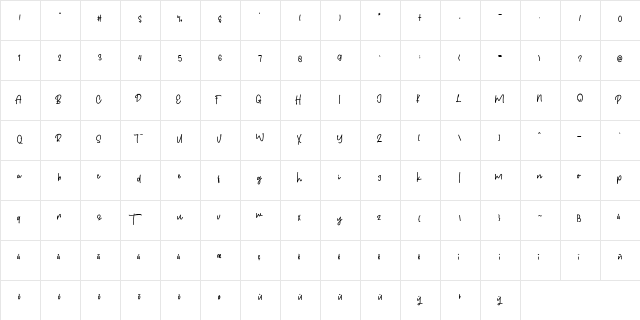
Chillhop Script
| Style | Script |
| Foundry | Crump Hand |
| Designer | Stefie Justprince |
Design Context for Chillhop Typeface
Chillhop flows with the natural rhythm of handwritten lettering, making it ideal for designs that call for warmth and personal expression.
Font Pairing: Combine Chillhop with a simple geometric sans for maximum contrast — the tension between flowing curves and clean structure is a classic typographic pairing.
Pro Tip: Use Chillhop for short runs of text — names, titles, or taglines. Extended body copy in script faces tires the eye quickly.